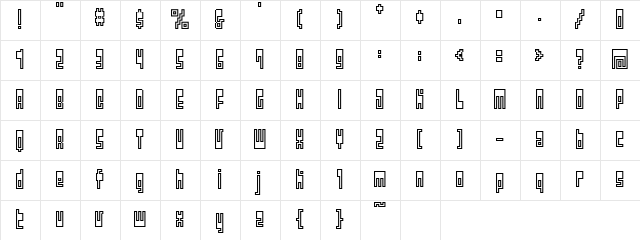
BM utopia A23 Free Font
BM utopia A23
Style: A23
Design Context for BM utopia
BM utopia is a composed and adaptable typeface that performs quietly and consistently across a wide range of design contexts.